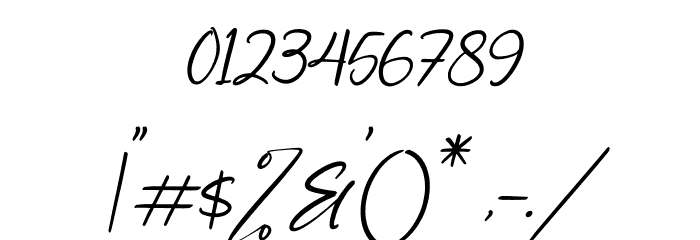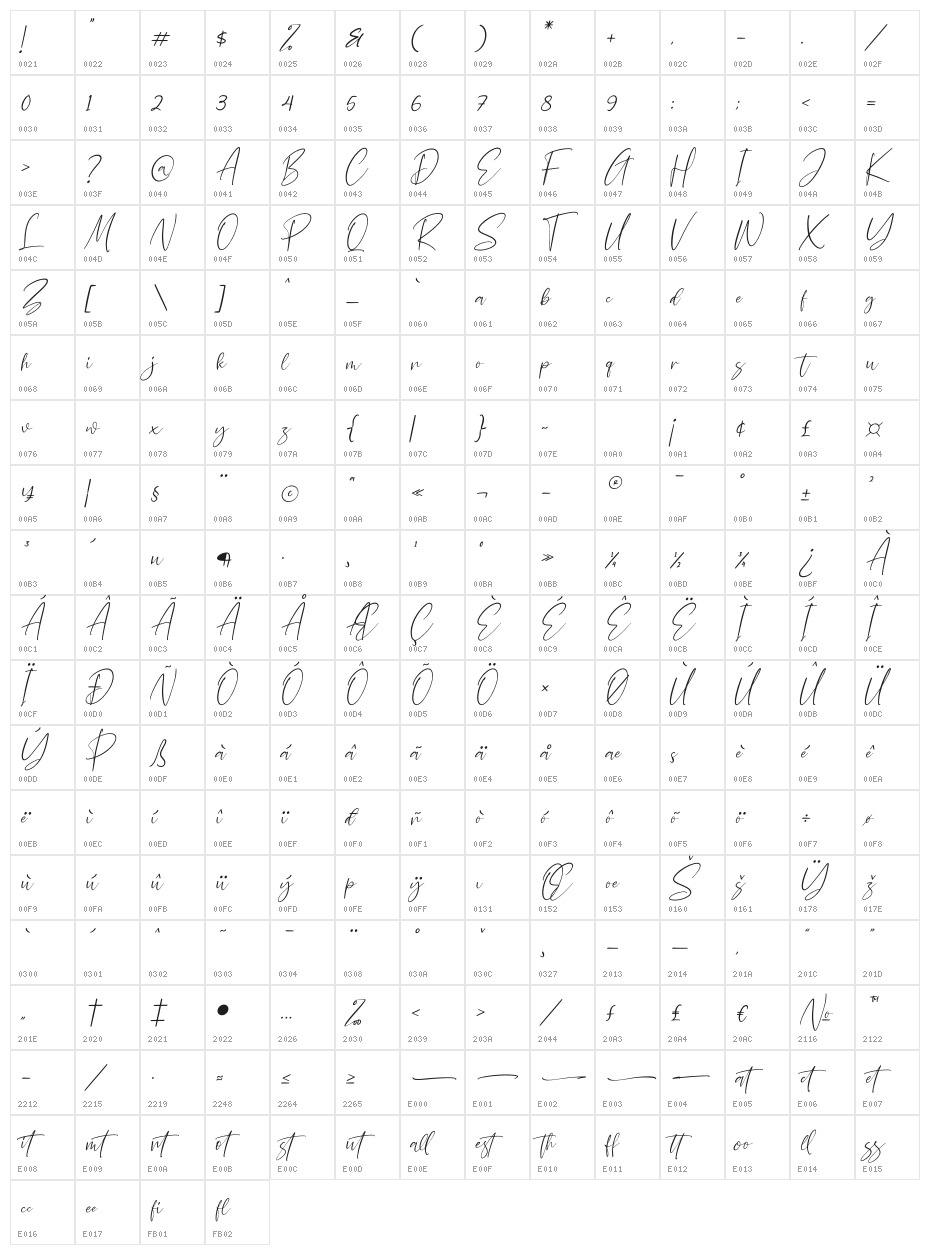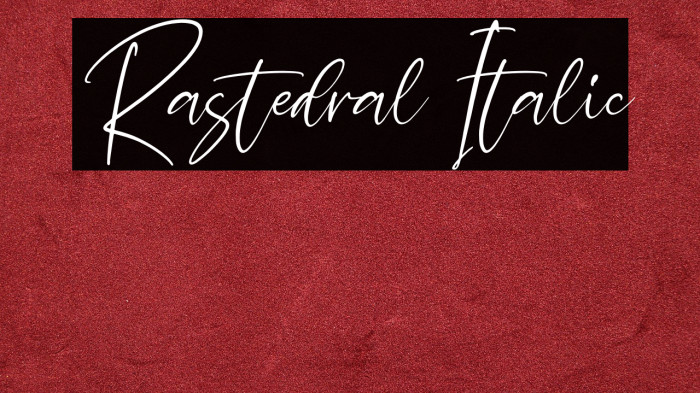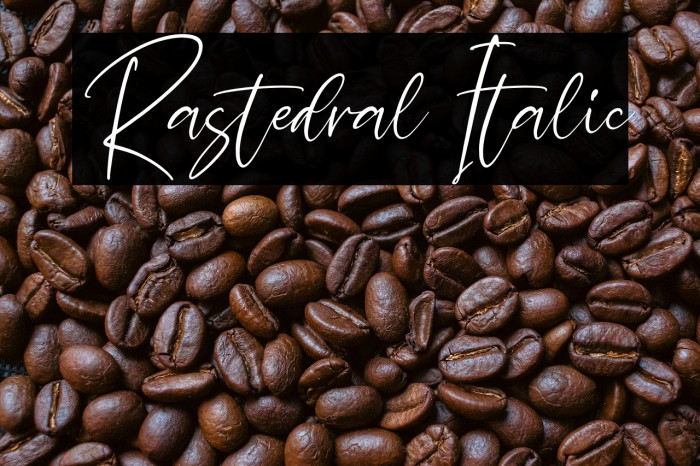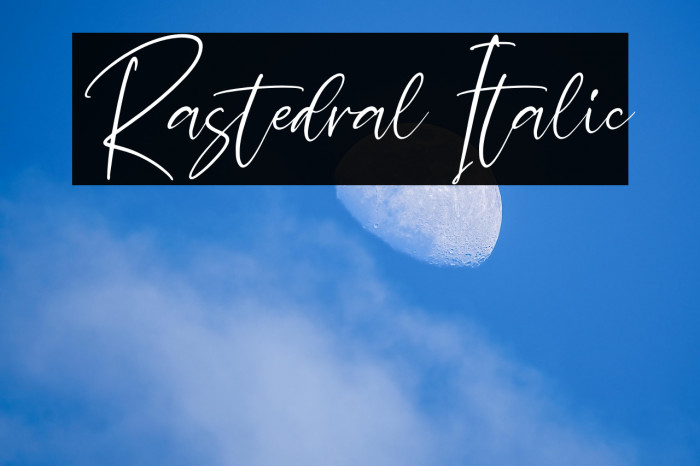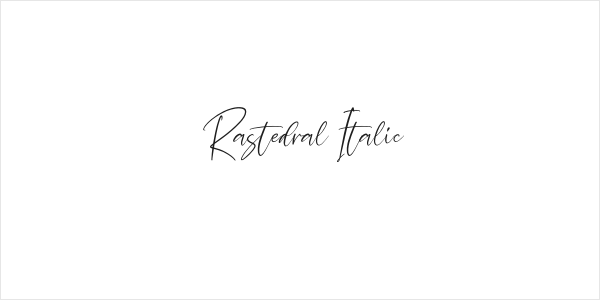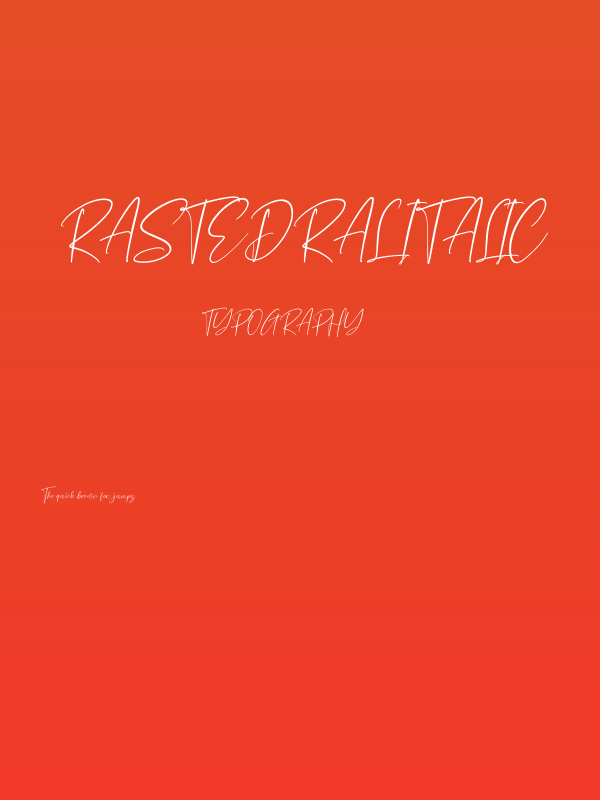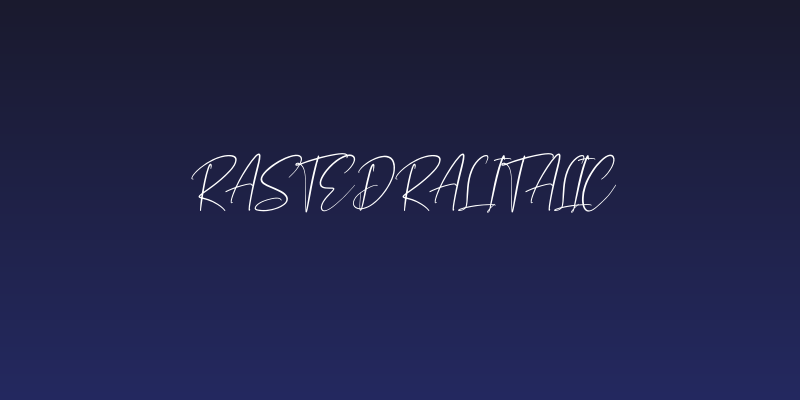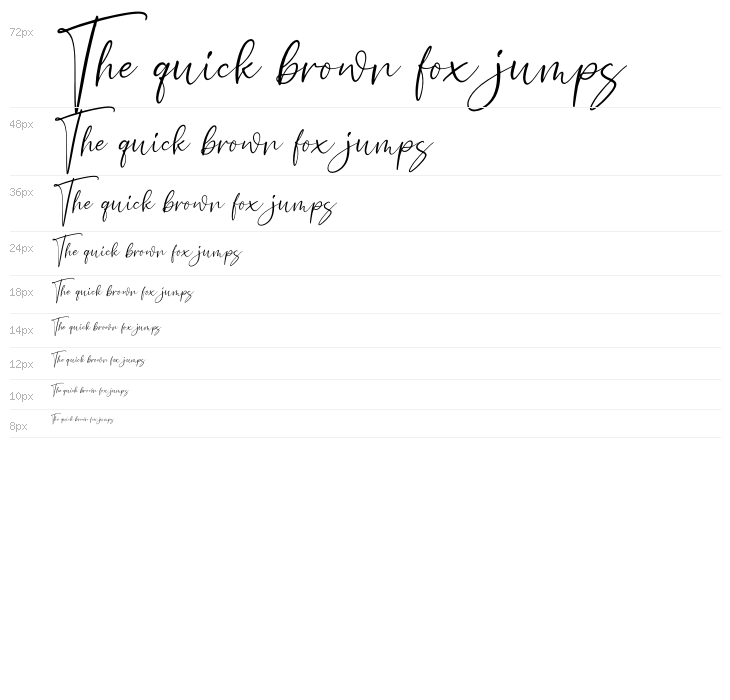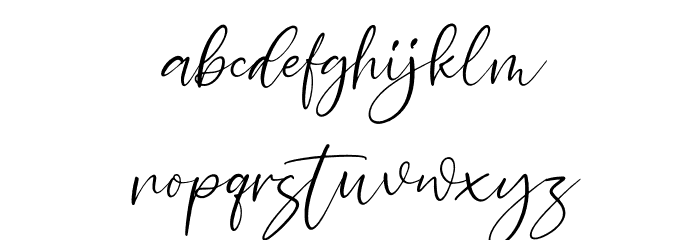
Rastedral Italic Font
Rastedral Italic Description
This font features an elegant and flowing script style, characterized by its smooth, cursive strokes and a slight slant that gives it a dynamic and graceful appearance. The uppercase letters are bold and sweeping, with a distinctive flair that adds a touch of sophistication. The lowercase letters maintain a consistent flow, enhancing readability while preserving the artistic quality. Numbers and special characters are crafted with the same attention to detail, ensuring a cohesive look across all elements. The font's overall design exudes a sense of elegance and creativity, making it suitable for projects that require a personal and artistic touch.